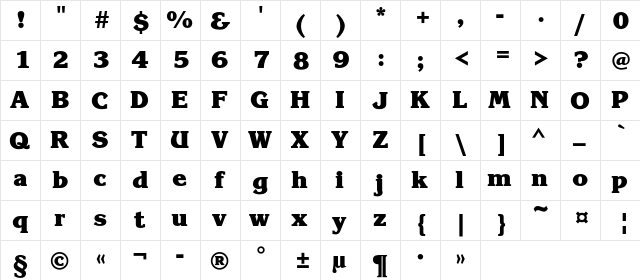
KorinnaBlackC Bold Font Preview
KorinnaBlackC Bold
Design Context for KorinnaBlackC Typeface
KorinnaBlackC is a composed and adaptable typeface that performs quietly and consistently across a wide range of design contexts. Its bold stroke weight gives it real presence on the page.